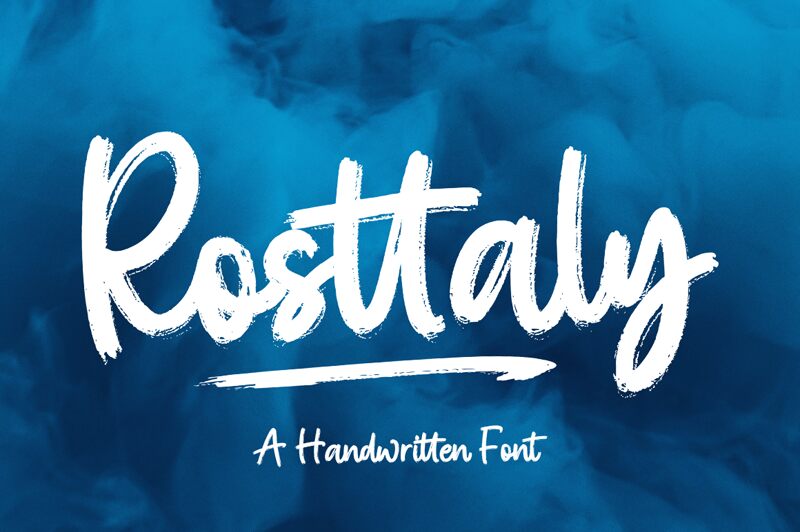
Rosttaly Script font, designed by Rastype, captures the essence of casual handwritten charm. Its flowing strokes and dynamic curves create a sense of spontaneity and warmth, making it an ideal choice for creative projects. The bold, yet graceful lines enhance its readability while maintaining artistic flair.
Perfect for branding, invitations, or social media graphics, this free font brings an inviting personal touch to every design it graces. Its versatility ensures that whether you use it in logos or inspirational quotes, Rosttaly Script injects personality and style seamlessly.
Rosttaly Script
Ras Type
Muhammad Taufik